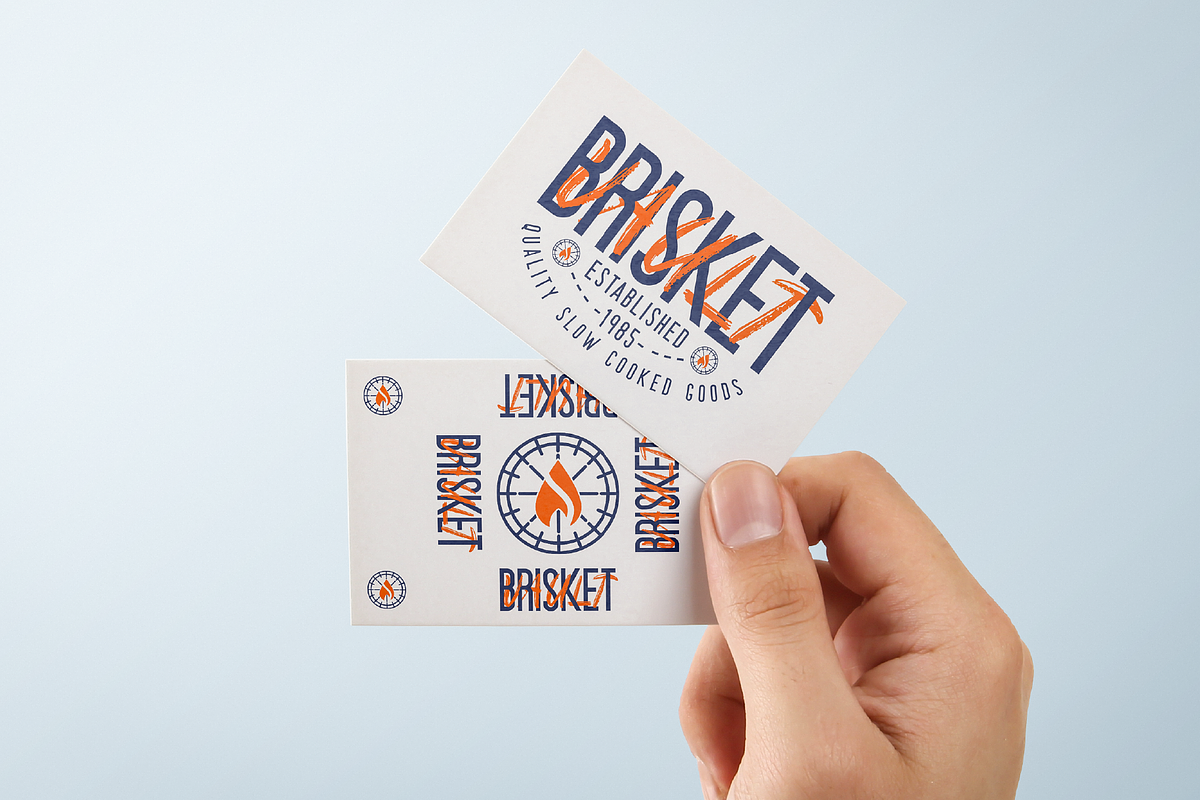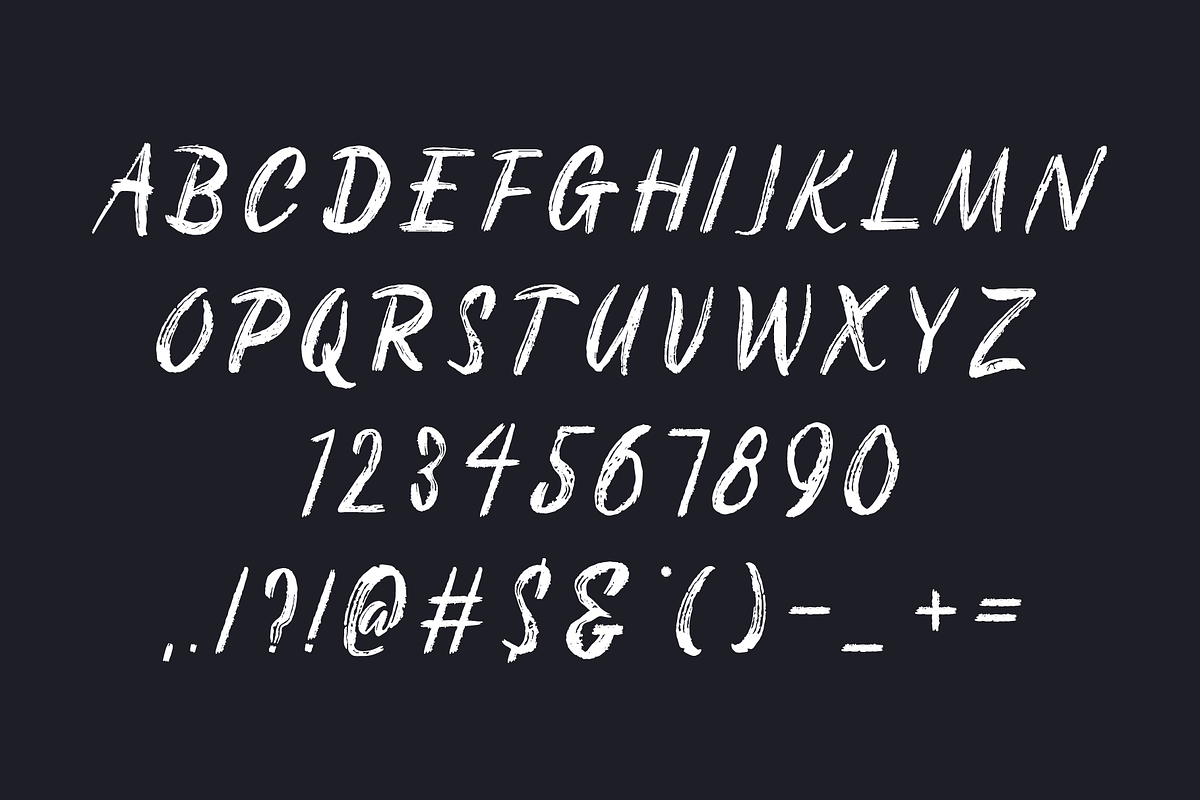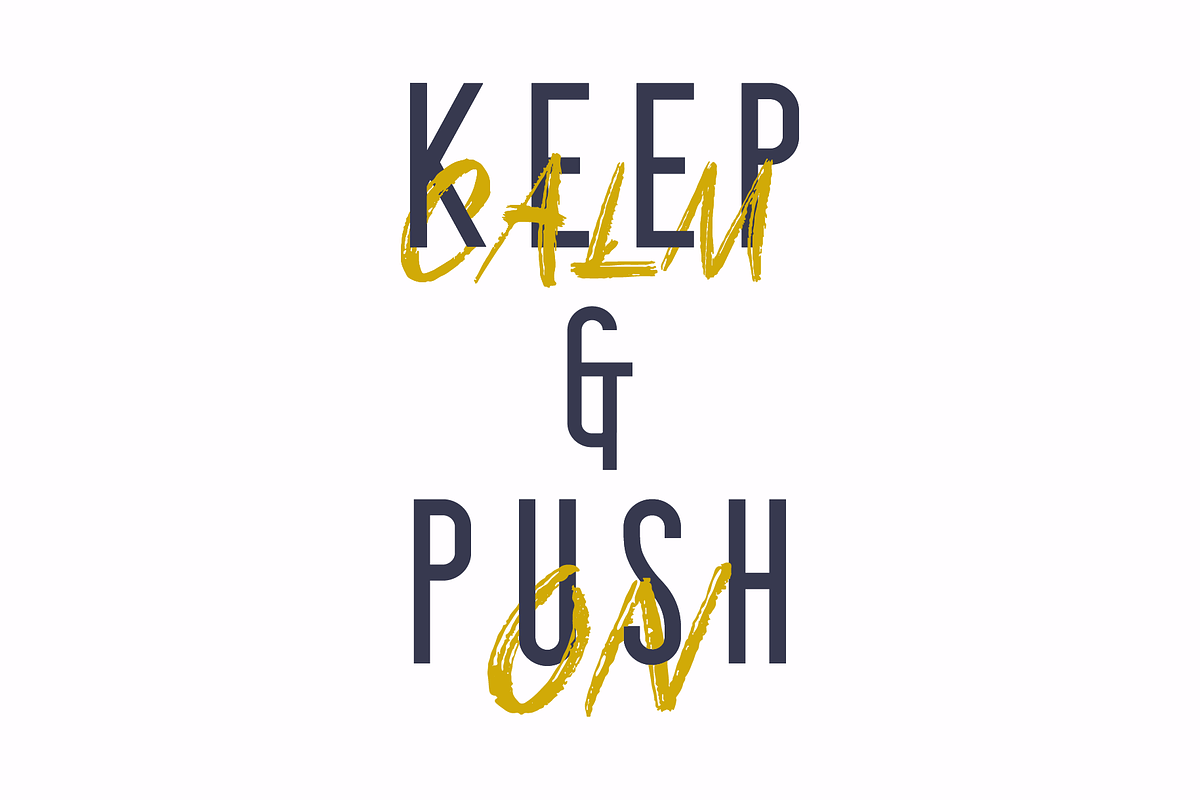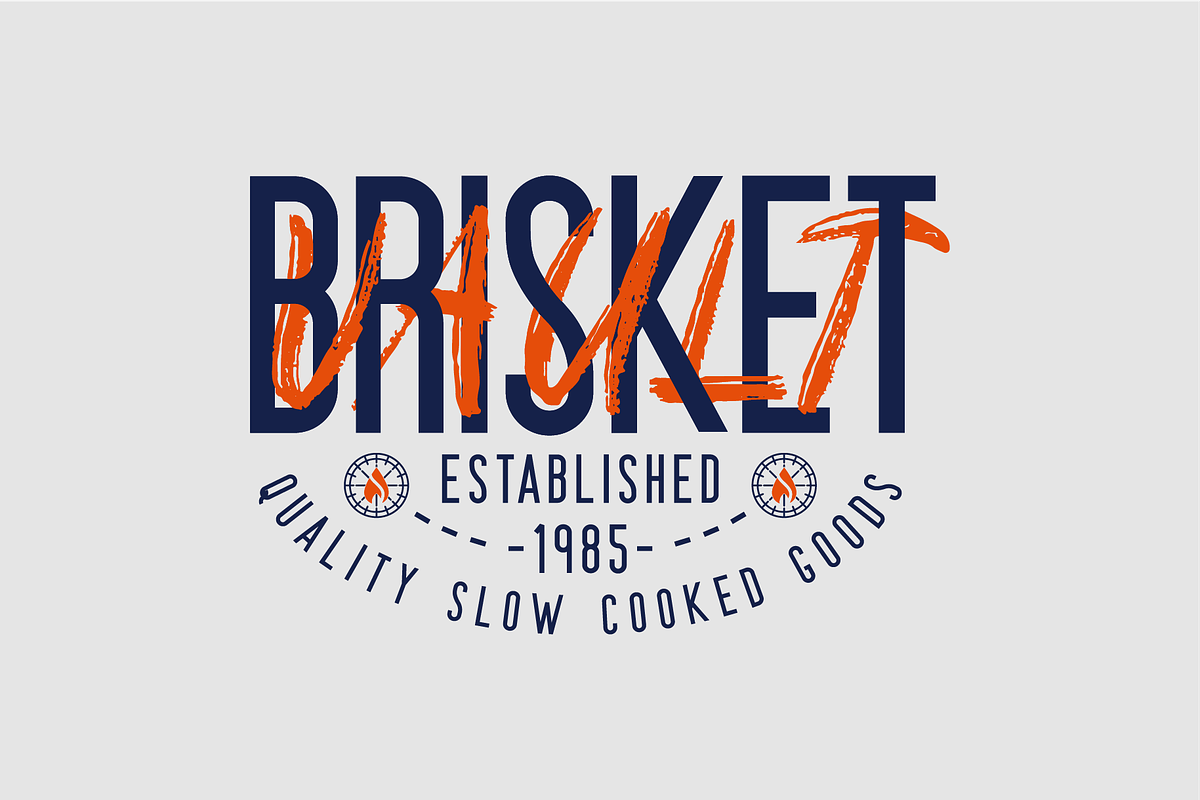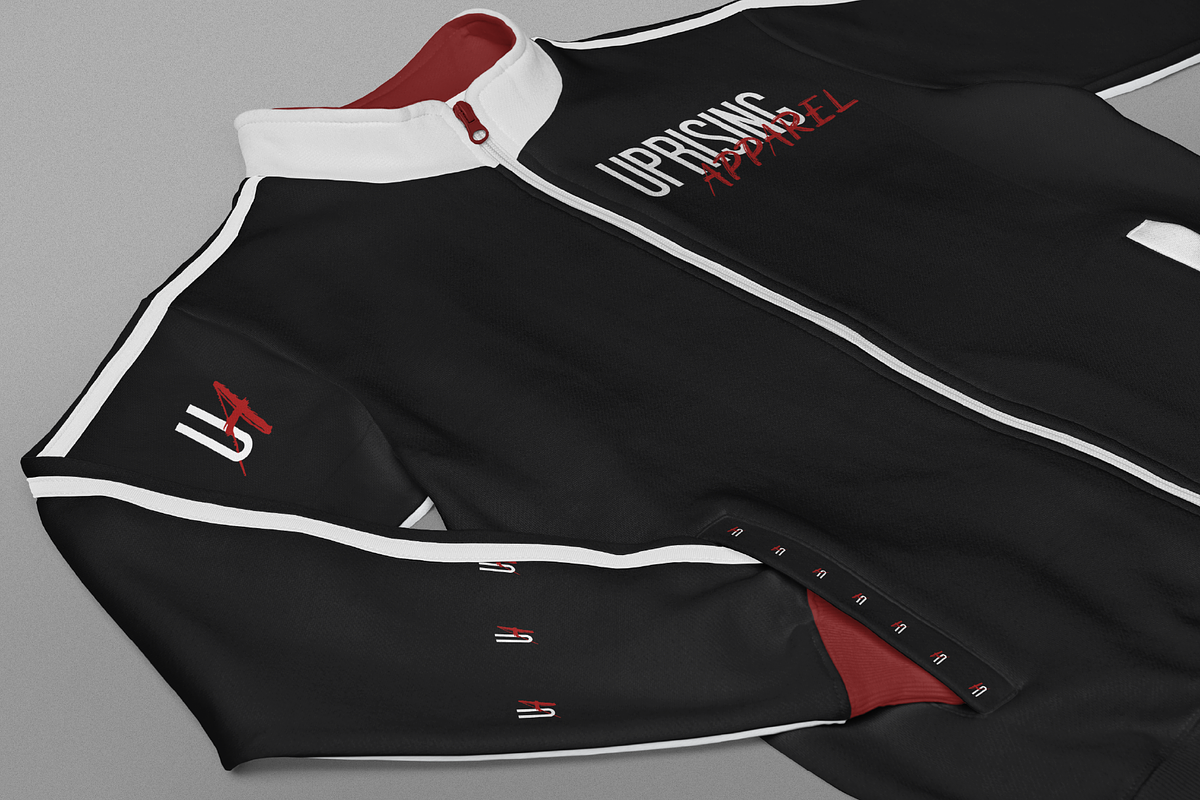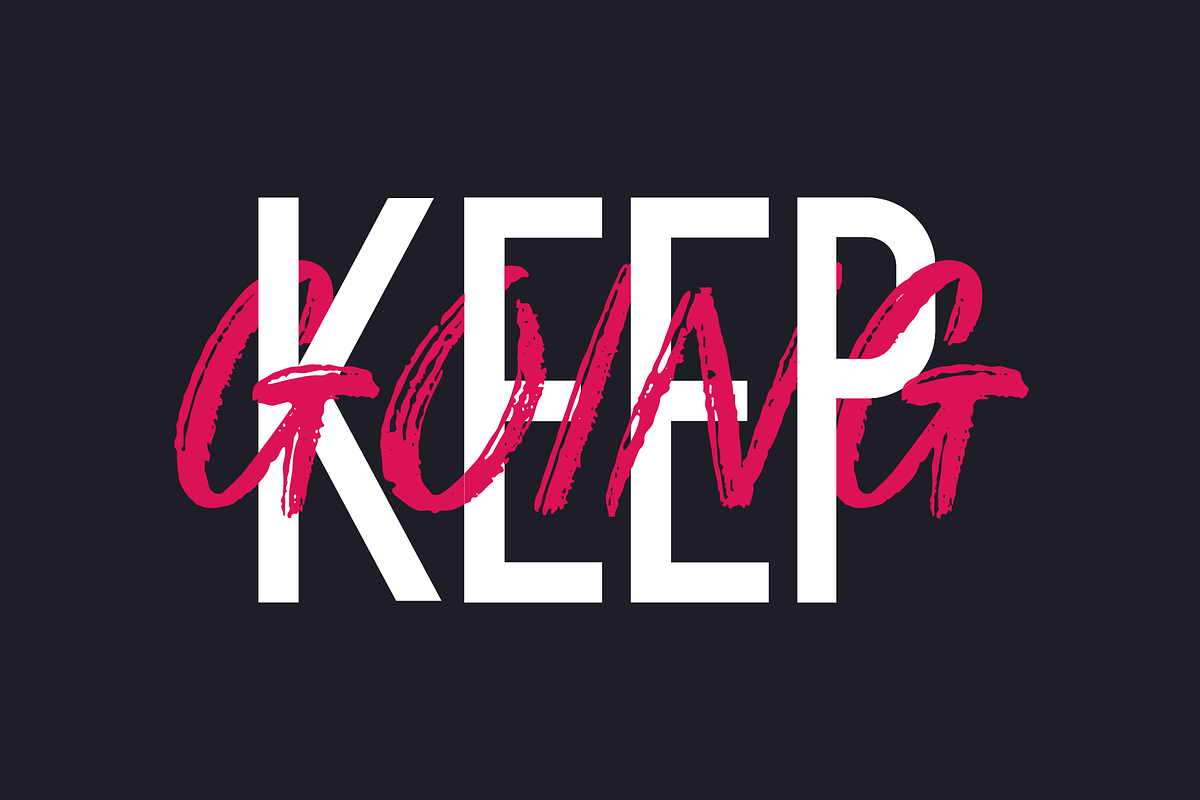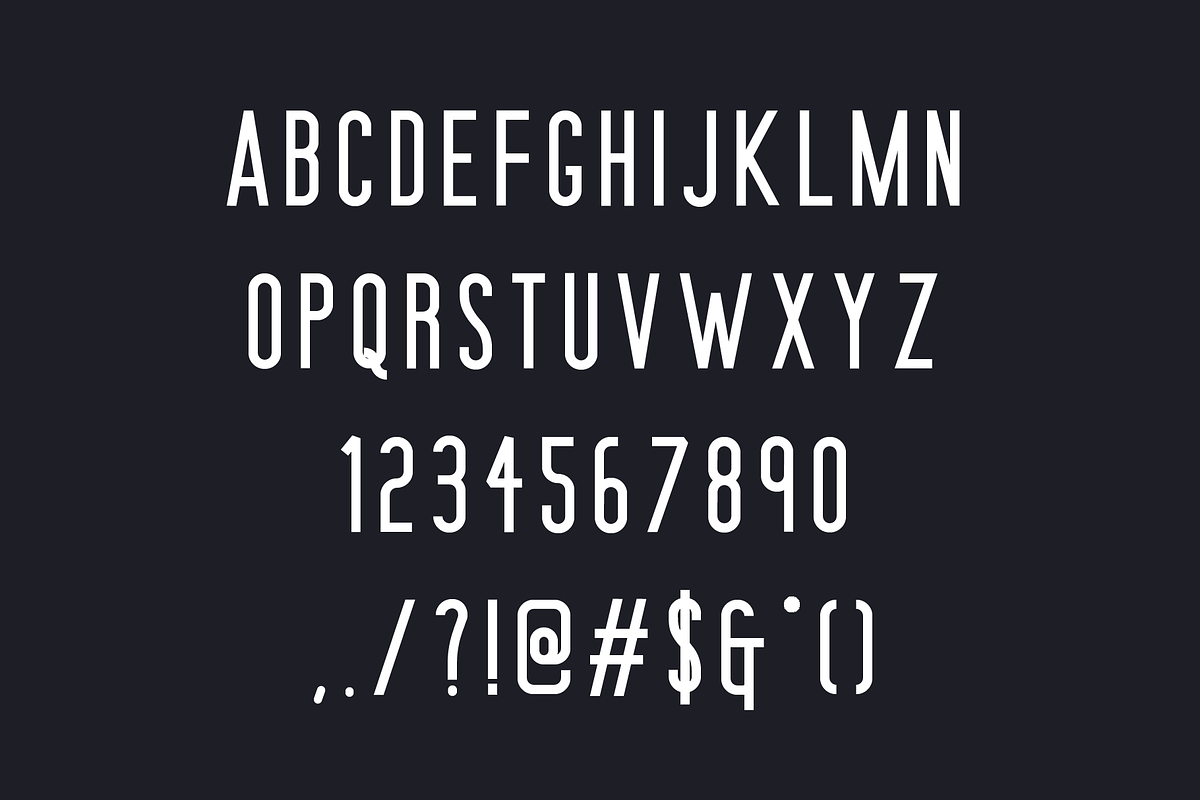
Steady Hands - Font Duo
Are you ready for the Steady Hands font duo? A rough hand drawn brush script paired with an industrial-style condensed san-serif, this duo is perfect for making a bold statement. Use each font individually or pair them to create unique, layered designs.
With smooth, hand drawn curves and a rough brush-stroke texture, the brush script has a unique personal feel, with easily adaptable letterforms.
The San-Serif stands bold and powerful, with unapologetic simplicity. This condensed font is perfect as a standalone font, but contrasts beautifully with its brush-stroke brother.
Steady Hands Duo is styled to work as a pair, so use masking and layering to create unique, interlocking text styles.
Both fonts are all caps fonts and include numbers and punctation.
- Steady Hands Brush Script
- Steady Hands Condensed